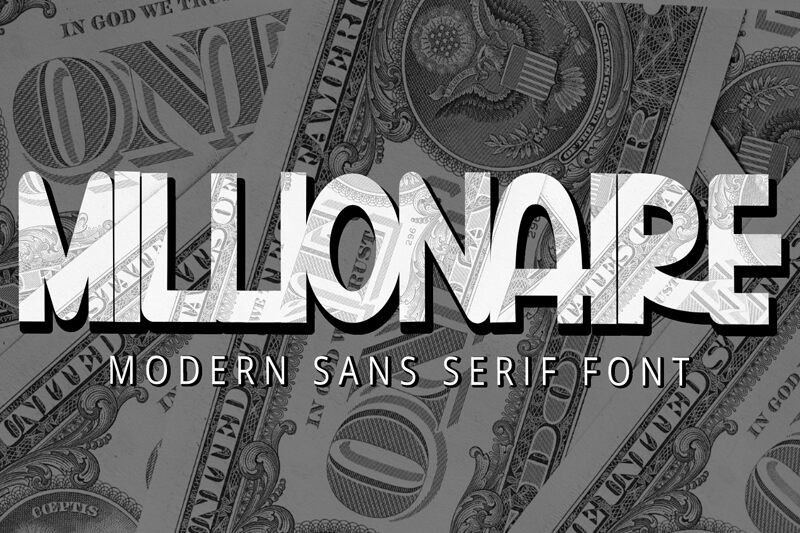
Millionaire
Millionaire font, designed by Al Ghul, is a mesmerizing display typeface that exudes modern elegance. With its sleek and streamlined sans serif style, this semi-bold font captivates attention and adds a touch of sophistication to any project.
Perfect for luxury brand logos, fashion magazines, or high-end product packaging, Millionaire font effortlessly conveys a sense of opulence and exclusivity. Its clean lines and contemporary aesthetic make it equally suitable for modern websites or trendy social media graphics.